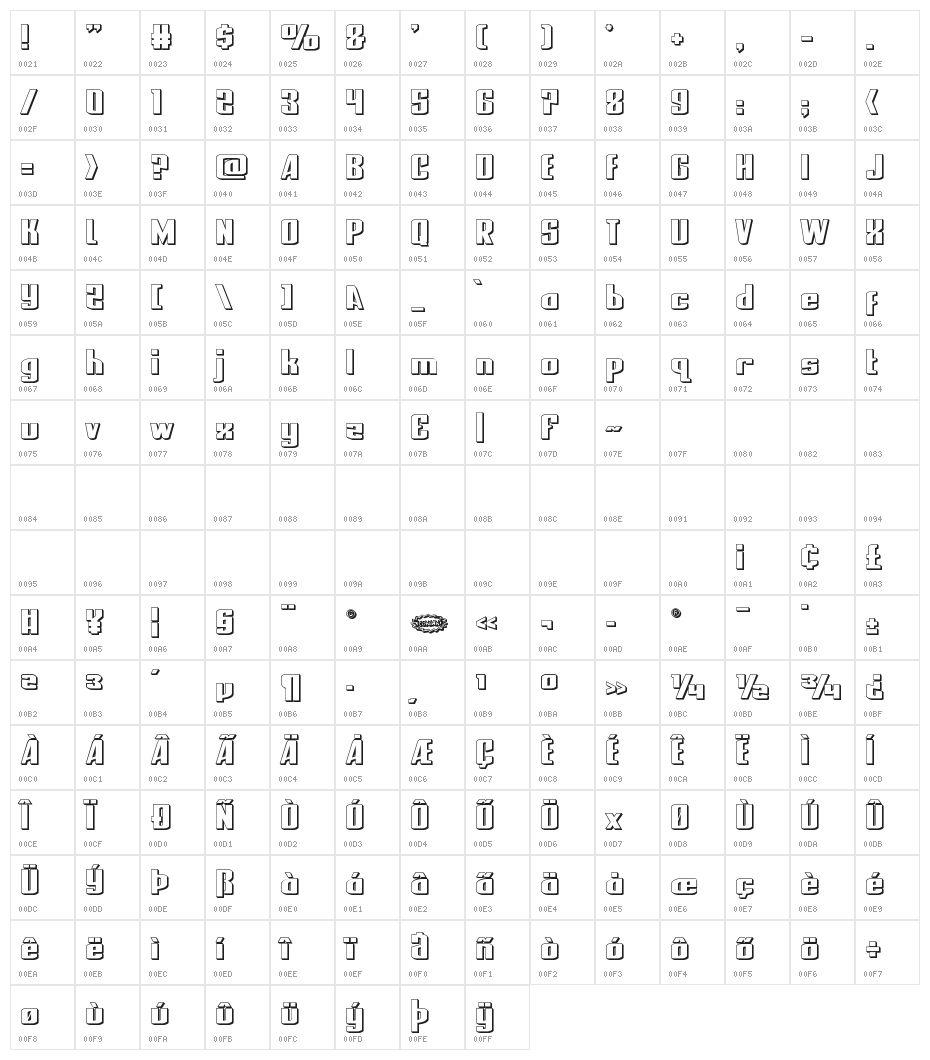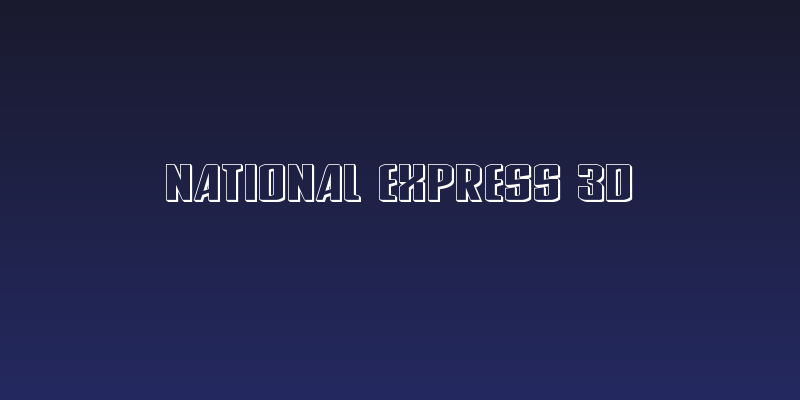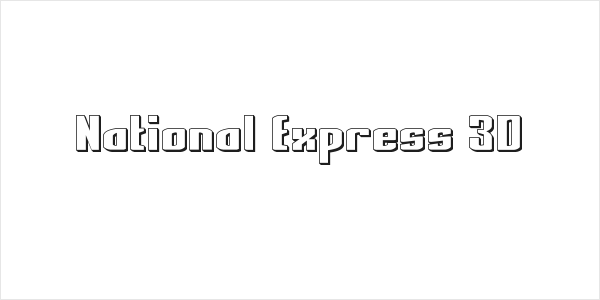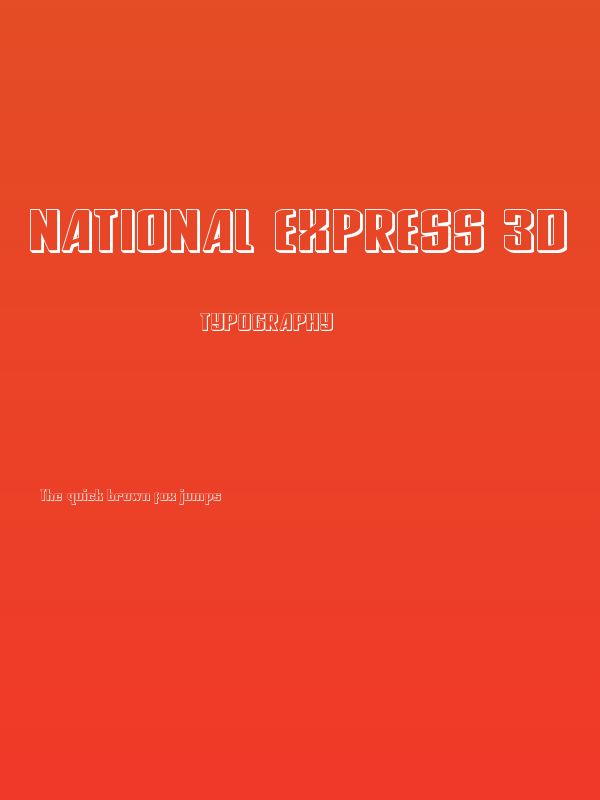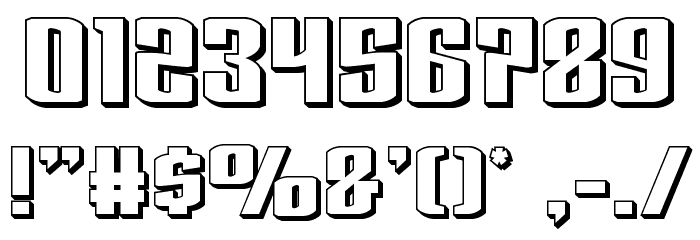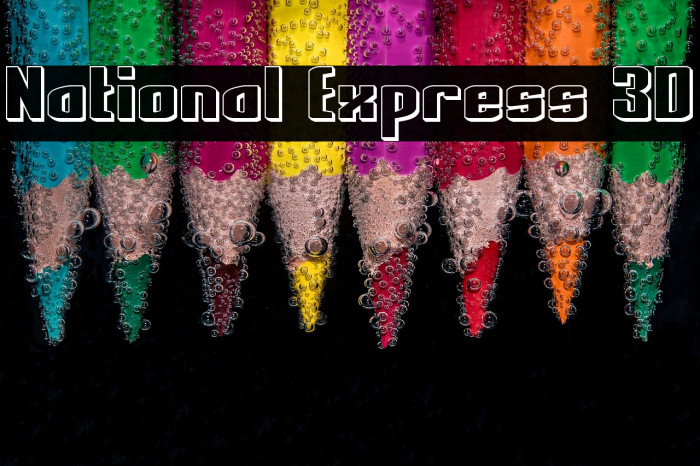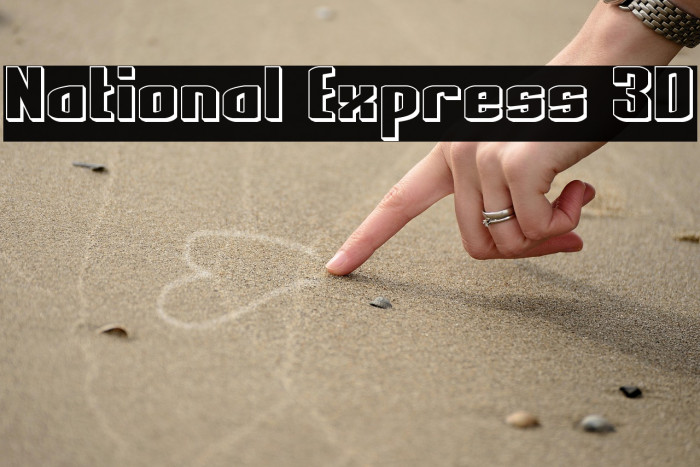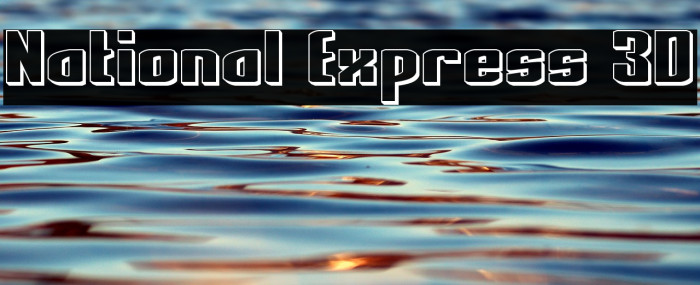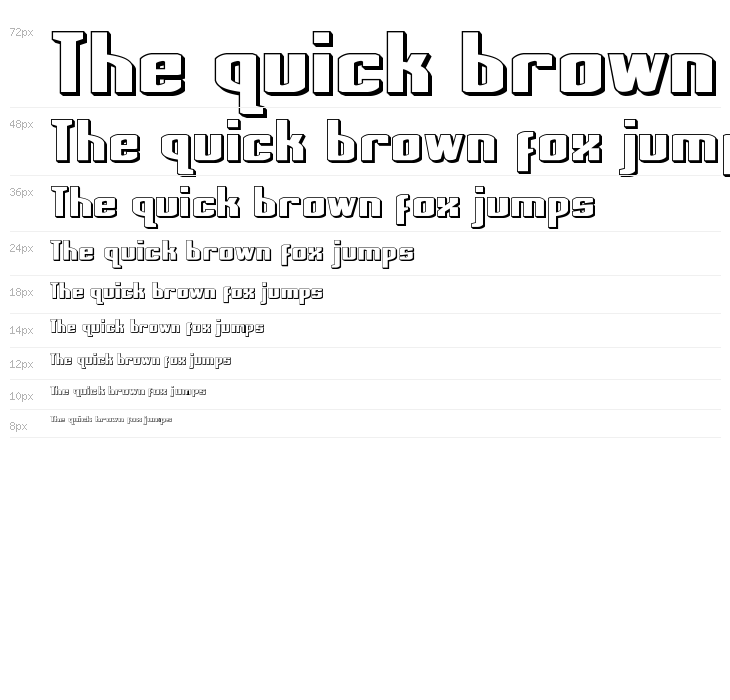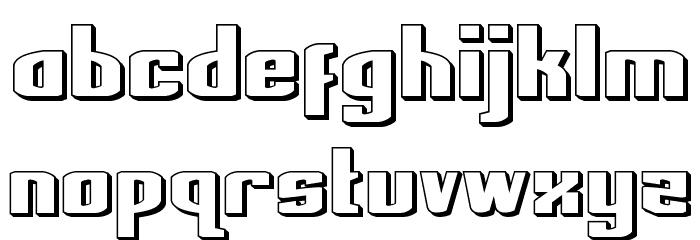
National Express 3D Font
National Express 3D Description
This font features a bold, three-dimensional design with a strong, impactful presence. The characters are outlined with a shadow effect, giving them a distinct, raised appearance. The uppercase and lowercase letters maintain a consistent style, with sharp edges and geometric forms. The numbers and special characters follow the same design principles, ensuring uniformity across all glyphs. This font is ideal for creating eye-catching headlines and titles, where a sense of depth and dimension is desired. Its unique style makes it suitable for projects that require a modern and dynamic look.
| Proposed Projects | Ideal for posters, logos, video game titles, and any design requiring a bold, modern look. |